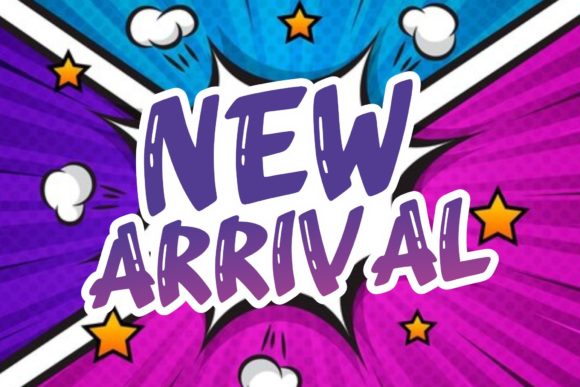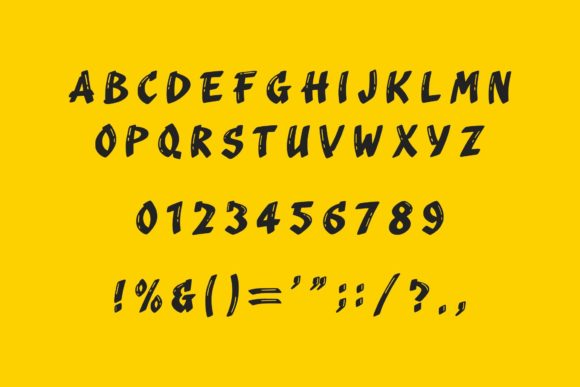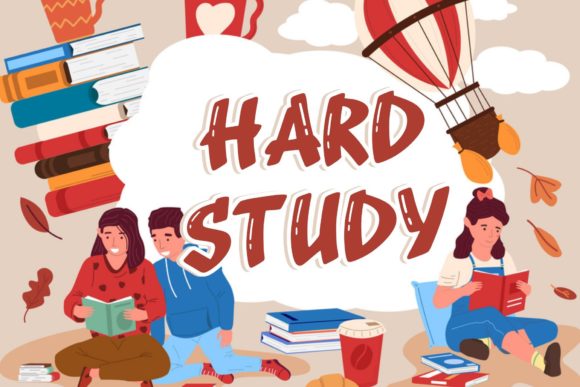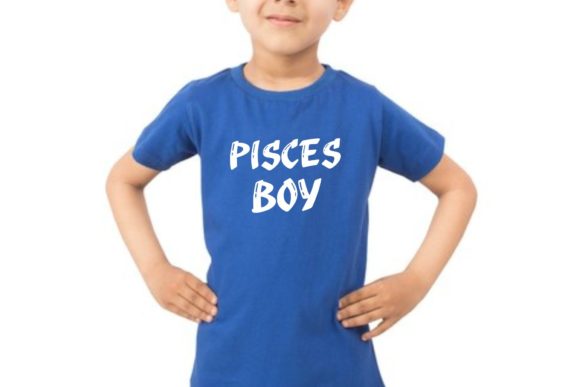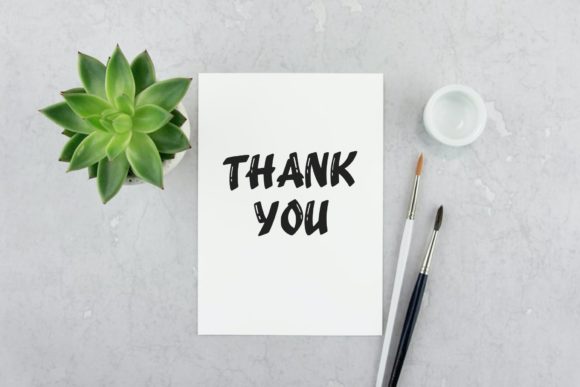
The Joy of Ganbate Font: A Designer’s New Best Friend
I still remember the time I was working on a project for a children’s toy brand, and I was struggling to find the perfect font that would capture the playful and cheerful vibe of their products. That’s when I stumbled upon Ganbate Font, and it instantly became my go-to choice. Its childish and informal style was exactly what I needed to bring the brand to life. In this article, I’ll share my love for Ganbate Font, its features, and how to make the most of it in your designs.
An Honest Review of Ganbate Font
What I Love About Ganbate Font ✨
- ✅ Unique and Playful Style: Ganbate Font has a one-of-a-kind, cheerful personality that adds a touch of whimsy to any design.
- ✅ Highly Versatile: Its informal and casual style makes it perfect for a wide range of projects, from product packaging to posters and logos.
- ✅ Ease of Use: The font is easy to read and works well in various sizes, making it a great choice for both digital and print designs.
- ⚠️ Limited Formality: Ganbate Font may not be the best choice for projects that require a formal or professional tone.
- ⚠️ Glyph Limitations: While the font has a range of glyphs and alternates, it may not have as many options as some other fonts.
The Backstory of Ganbate Font
While I couldn’t find any information on the font’s creator, I like to imagine that Ganbate Font was designed by a team of creatives who wanted to bring a little joy and whimsy to the world of typography. Perhaps they were inspired by the playful, handwritten fonts of the 80s and 90s, and set out to create a modern take on that classic style.
Q: What is Ganbate Font best used for?
A: Ganbate Font is perfect for projects that require a playful, informal style, such as product packaging, posters, logos, and t-shirts.
Q: What are some common design mistakes to avoid when using Ganbate Font?
A: To get the most out of Ganbate Font, avoid using it in projects that require a formal or professional tone. Additionally, be mindful of the font’s limitations, such as its glyph set and OpenType features.